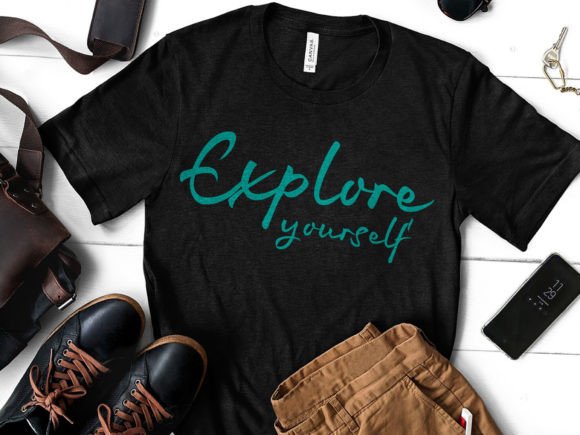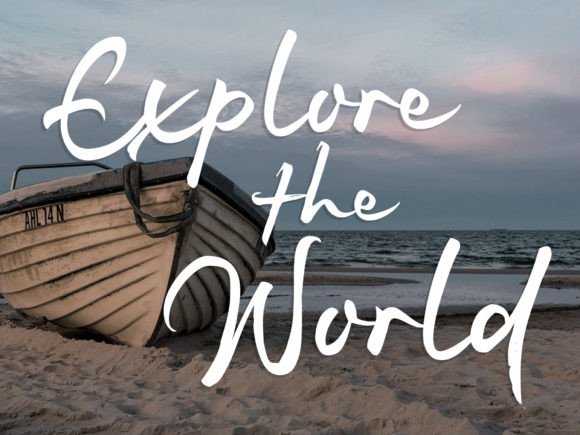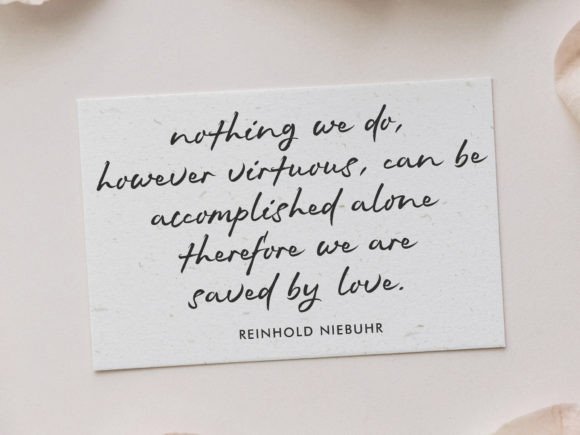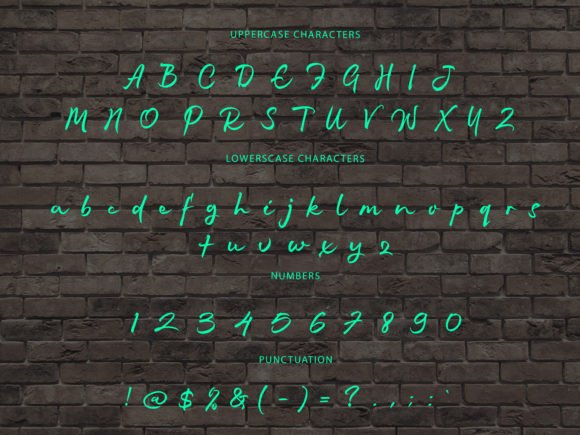
Discover the Power of Handwritten Charm with the Brass Jamd Font
Have you ever been stuck on a design project, struggling to find the perfect font that captures the essence of your brand’s personality? You’re not alone. As designers, we’re always on the lookout for that one font that will elevate our work and leave a lasting impression. For those who crave a unique, handcrafted look, the Brass Jamd Font is about to become your new best friend.
This dynamic brush script font is designed to bring a touch of elegance and energy to your designs. With its bold, expressive lines and classic Latin forms, the Brass Jamd Font is perfect for making a statement. Whether you’re creating bold branding, striking headlines, or eye-catching posters, this font is sure to command attention while maintaining legibility and style.
Brass Jamd Font Key Features
- Font Family: Brass Jamd
- Unique Characteristics: The font features a unique blend of vintage and modern elements, with intricate details and ornate flourishes, making it perfect for creating eye-catching designs and titles
Brass Jamd Font Review
I was excited to dive into the Brass Jamd Font, and here’s what I thought:
- The font’s unique blend of modern and vintage elements makes it perfect for projects that need a touch of elegance and sophistication.
- The font’s high contrast and clear letterforms make it easy to read, even at smaller sizes.
- The font’s flexibility makes it suitable for a wide range of applications, from body text to headlines.
- The font’s limited character set may be a drawback for designers who need to work with non-Latin scripts or special characters.
- The font’s bold weights can feel a bit chunky at smaller sizes, which may not be ideal for fine typography.
Overall, I think the Brass Jamd Font is a solid choice for designers who want a versatile and elegant font for their projects. While it may have some limitations, its unique style and flexibility make it worth considering. With a bit of careful planning and design, the Brass Jamd Font can be a real showstopper.
Getting the Most Out of Brass Jamd Font
Here are some tips to get the most out of Brass Jamd Font:
- Use it for headings and titles to create a sense of hierarchy in your design.
- Pair it with other fonts to create a unique and elegant font combination.
- Experiment with different font sizes and styles to add visual interest to your design.
Brass Jamd Font is ideal for:
- Business cards and letterheads.
- Menus and event programs.
- Any design where a touch of elegance and sophistication is required.
Brass Jamd Font is a versatile font, but there are other alternatives that designers can consider. Here are a few options:
Pacifico is a beautiful script font that works well for creative and elegant designs. It’s perfect for wedding invitations, logos, and branding materials. Compared to Brass Jamd Font, Pacifico has a more refined and sophisticated look, making it ideal for high-end designs.
Great Vibes is a modern script font that’s perfect for creating a fun and lively atmosphere. It’s great for designing posters, flyers, and social media graphics. Compared to Brass Jamd Font, Great Vibes has a more playful and energetic vibe, making it ideal for young and trendy designs.
Carolyna Pro is a elegant and sophisticated font that’s perfect for designing luxury brands and high-end materials. It’s great for creating a sense of sophistication and elegance. Compared to Brass Jamd Font, Carolyna Pro has a more refined and luxurious look, making it ideal for high-end designs.